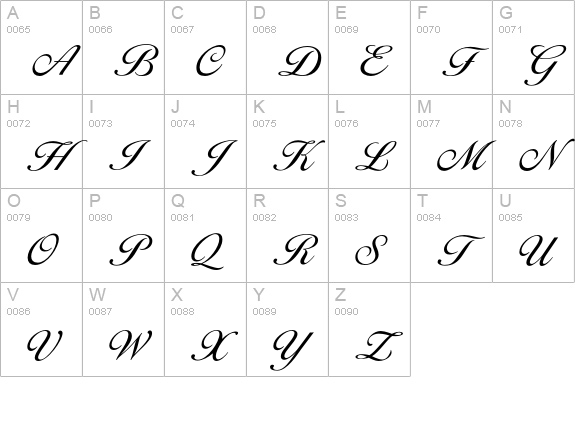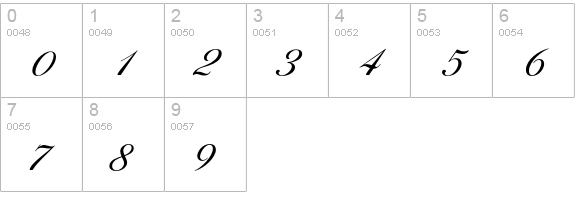
OPTIDiannaScript-LightAgen Font Details
OPTIDiannaScript-LightAgen is a charming and elegant handwritten font that exudes a sense of sophistication and grace. Its delicate curves and flowing strokes make it ideal for adding a touch of refinement to any design project. This font is perfect for wedding invitations, greeting cards, branding, and more. What makes OPTIDiannaScript-LightAgen even more appealing is that it is available for free download at FontsMarket.com. This means that you can easily access this beautiful font without any cost, making it a valuable addition to your font collection. Don't miss out on the opportunity to enhance your designs with the timeless beauty of OPTIDiannaScript-LightAgen. Download it today and elevate your projects with its exquisite style.